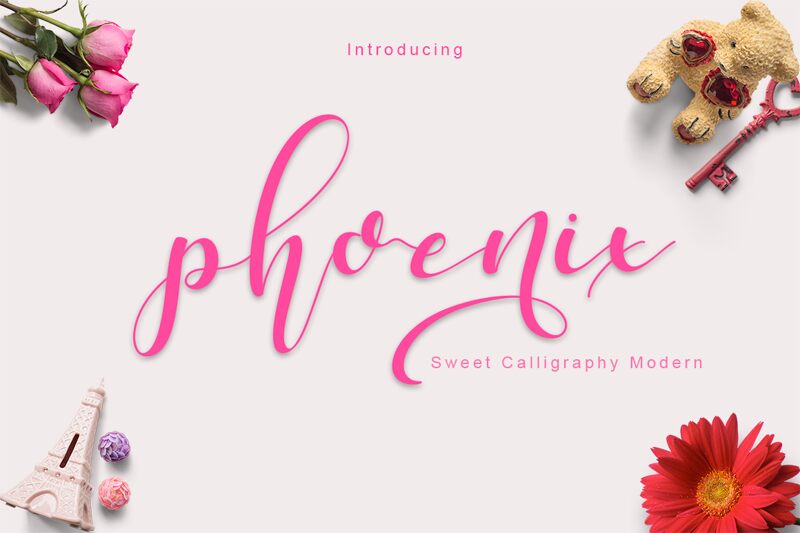
Phoenix is a captivating calligraphic font designed by Tuanku Muhammad Iqbal. Effortlessly blending elegance and fluidity, this font exudes a sense of timeless sophistication. Its flowing strokes and graceful curves evoke the natural movements of a skilled calligrapher's hand, creating a mesmerizing visual experience.
Phoenix's versatility shines through its ability to seamlessly transition between formal and informal settings. From luxurious editorial pieces to chic branding campaigns, this font has the power to elevate any design and leave a lasting impression. Its unique character and refined aesthetic make it a standout choice for those seeking to infuse their projects with a touch of refined artistry.